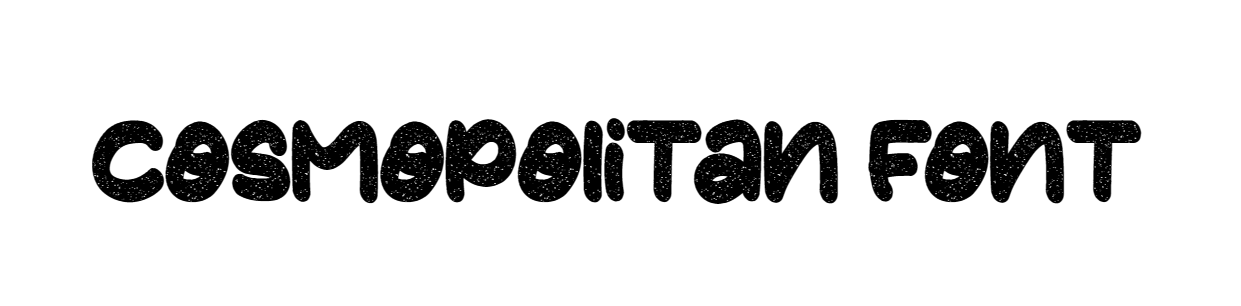
Cosmopolitan
Cosmopolitan is a fancy font created by Stefie Justprince (2020). Bold and full of character, it's built to stand out rather than blend in. The free download includes two styles, and you can try every one of them with your own text in the preview above.
- Designer: Stefie Justprince
- Font styles: 2 (Regular and Distressed)
- Weights: Regular (400) to SemiBold (600)
- Glyphs: 98 in the Regular style
You get every letter from A to Z in both cases and all the numbers from 0 to 9, which means Cosmopolitan can handle full sentences, dates and prices. Everyday marks like &, !, ? and @ are there too. There are no accented letters like é or ñ, so it's best kept to English text.
Think of Cosmopolitan for posters, logos and eye-catching headlines. Use it for one standout word or headline and let simpler fonts handle the rest. Because the family has more than one style, you can mix them in a single design for headings, subheadings and highlights.
No. Cosmopolitan has no accented letters such as é, ñ or ü, so it's best for English text.